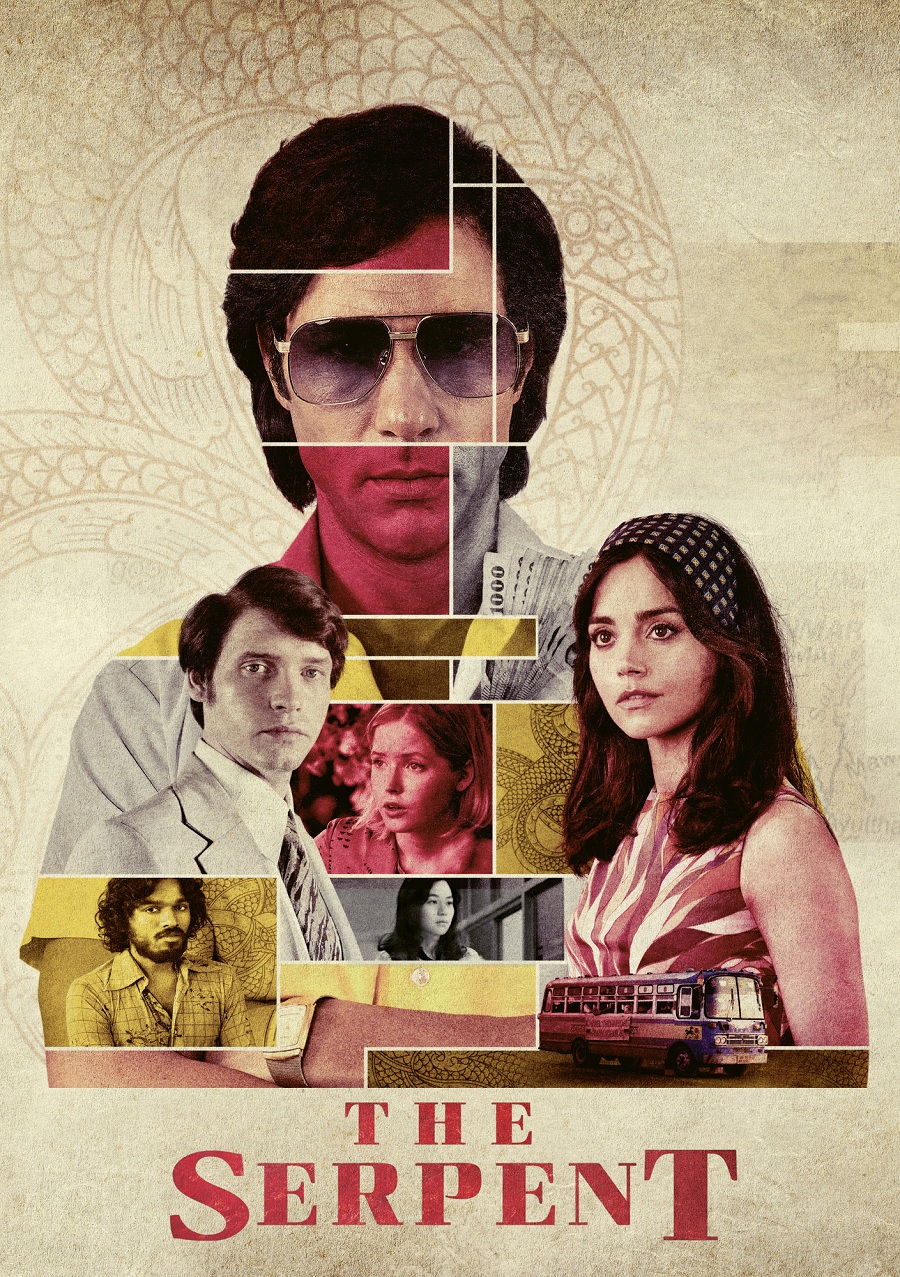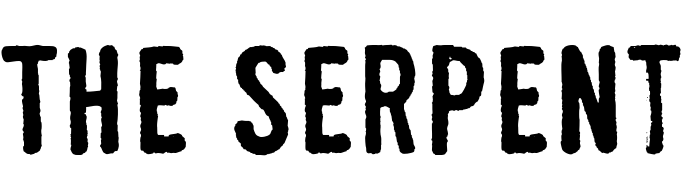
The Serpent Font
CrimeThe Serpent is a British crime drama series based on the true story of Charles Sobhraj, a notorious serial killer who preyed on Western tourists in Southeast Asia during the 1970s. It premiered on BBC One in 2021 and on Netflix in 2021.
''The Serpent'' poster for BBC One features the modern, square-shaped serif font Curve Extra Bold, designed by Arne Freytag. On the other hand, the poster for Netflix utilizes the rough, display type font Shenzhen Industrial, which was created by Rian Hughes.